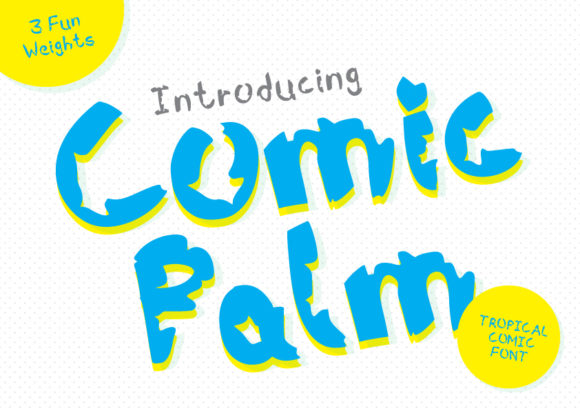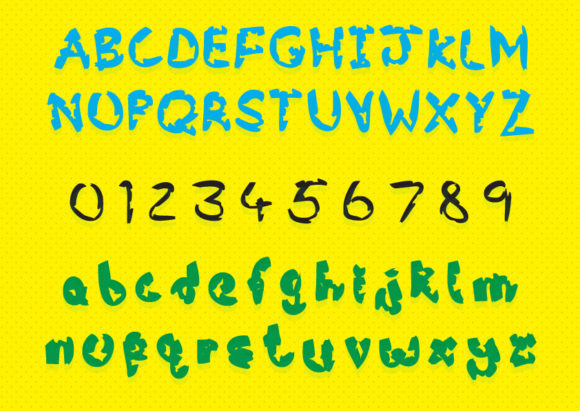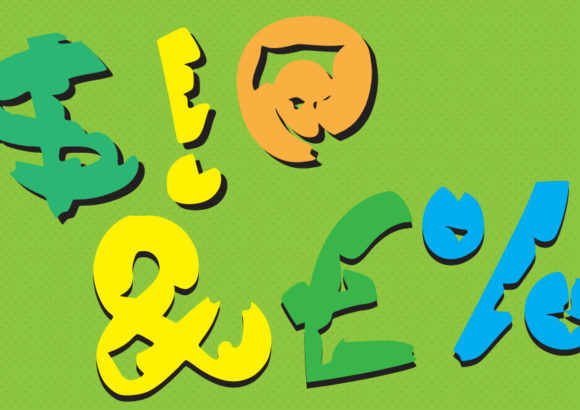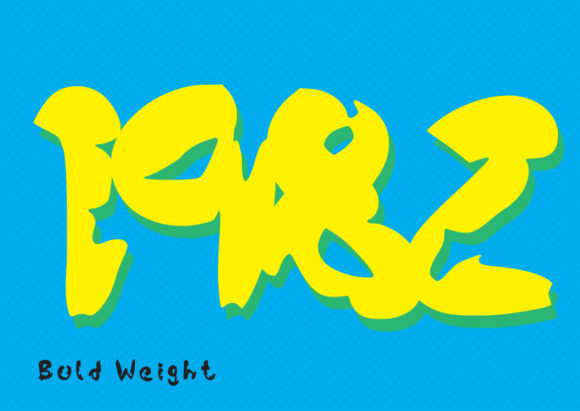
HomeScript FontsComic Palm Font Script Fonts Comic Palm Font FacebookXPinterestWhatsApp Comic Palm Font Poster 2 Comic Palm Font Poster 3 Comic Palm Font Poster 4 About Comic Palm Font Comic Palm is a cute script with a tropical feel. Use it to make any design project stand out. DOWNLOAD NOW People also explored Simple Floral Line Monogram Font Lovelythin Font Slate Textured Glyphs Font Male Canvas Red Bella Canvas 3001 Mockup Black Frame Mockup with Pink Tulip Barbassy Font Regina Elisa Font Best Hero Font Daisy Facthory Font 393 0 TagsComic Palm Font Previous articleAnnex FontNext articleWizards Scribble Font LEAVE A REPLY Cancel reply Comment: Please enter your comment! Name:* Please enter your name here Email:* You have entered an incorrect email address! Please enter your email address here Website: Save my name, email, and website in this browser for the next time I comment. Personal Use Free Shnobel Personal Use Free Read more about this font Nickainley Personal Use Free Read more about this font Rellista Script Personal Use Free Read more about this font Setta Personal Use Free Read more about this font BLOG Top 10 Handwritten Fonts That Elevate Your Designs Top 10 Handwritten Fonts That Will Elevate Your Designs Handwritten fonts bring a warm, personal touch to every creative project. Whether you're designing logos, invitations,... Free Fonts Risk: Why Free Fonts Can Be Dangerous for Designers Exploring Font Trends Fonts That Capture the Spirit of New York City